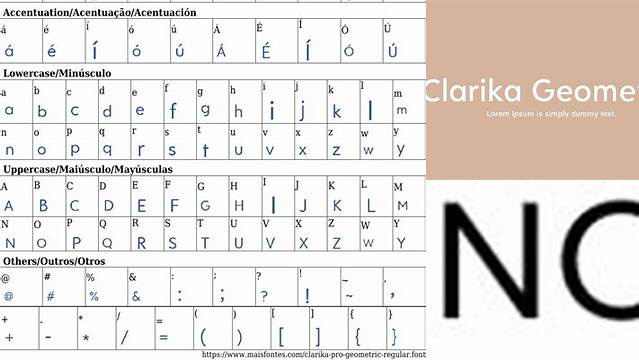
Hey guys! Are you on the hunt for a fresh, modern font that can elevate your design projects? Look no further than Clarika Pro Geometric Regular! This font family is a fantastic choice for a variety of applications, offering a clean, contemporary aesthetic that's perfect for everything from headlines to body text. And the best part? You can get it as a free download! This comprehensive guide will walk you through everything you need to know about Clarika Pro Geometric Regular, including where to download it safely, how to use it effectively, and some cool design examples to spark your creativity. Let's dive in!
What is Clarika Pro Geometric Regular?
Clarika Pro Geometric Regular is a versatile typeface that beautifully blends geometric precision with a touch of modern flair. Its clean lines and balanced proportions make it incredibly readable, while its contemporary design gives it a unique character that can instantly grab attention. This font belongs to the sans-serif family, which means it doesn't have the small decorative strokes (serifs) found on some other typefaces. This minimalist approach lends itself well to a variety of design styles, from minimalist and modern to more playful and creative projects. Clarika Pro offers a range of weights and styles that allow you to tailor the font to your specific needs, ensuring that you can create a cohesive and visually appealing design. It's the perfect font for any modern design project. The geometric nature of the font gives it a sense of order and structure, making it suitable for everything from branding to website design, and even long-form articles. The Regular weight is an excellent choice for body text, providing a clear and easy-to-read experience for your audience. You can use this font to create eye-catching headlines or to add a touch of sophistication to your design. Overall, Clarika Pro is a fantastic choice for designers, offering a flexible and attractive typeface to meet a wide variety of design requirements. If you are looking for a font that is legible and visually appealing, then Clarika Pro Geometric Regular is the perfect font for your project. The free download is available through various platforms and websites that offer a selection of free fonts. Be sure to check the licensing terms before using the font for commercial purposes.
Clarika Pro Geometric Regular is a highly readable and visually appealing typeface, making it an excellent choice for designers. Its minimalist design and sans-serif structure offer a clean aesthetic that works seamlessly across various projects. The geometric features provide a modern feel, while the regular weight makes it a good fit for body text, headlines, and more. Overall, Clarika Pro Geometric Regular is a great option if you're seeking a versatile, stylish, and free-to-download font to enhance your design work.
Using Clarika Pro Geometric Regular in Your Designs
Alright, you've downloaded Clarika Pro Geometric Regular – now what? This section will give you some awesome tips on how to use this versatile font to its full potential. Whether you're designing a website, creating marketing materials, or working on a personal project, Clarika Pro can help you achieve a polished and professional look. Here are some design tips and best practices:
- Headlines and Titles: Clarika Pro's clean, geometric design makes it a perfect choice for headlines and titles. Its strong presence can instantly grab the reader's attention. Experiment with different weights (like bold or italic) to create visual hierarchy and emphasize important information. Consider using a slightly larger point size for headlines to make them stand out.